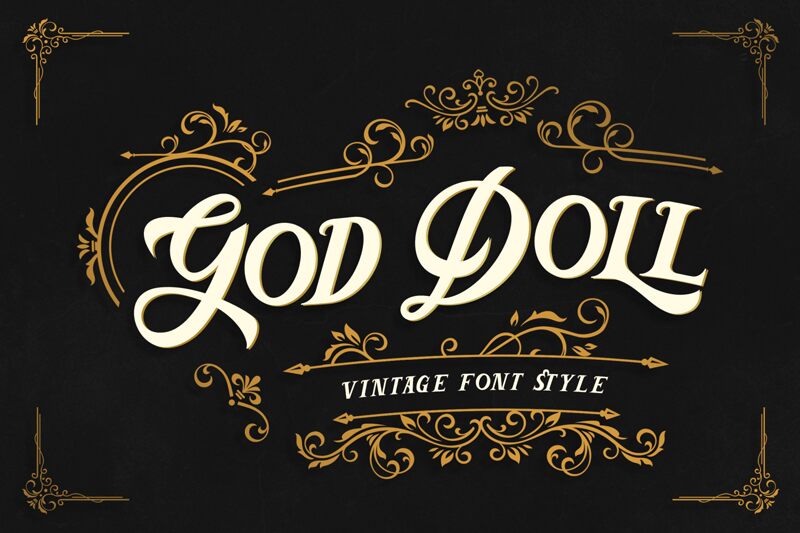
God Doll is a captivating vintage display font meticulously crafted by Typefactoryco. Inspired by classic posters, this hand-made font exudes a timeless charm that instantly transports your designs to the golden era.
With its versatile features, God Doll offers uppercase and lowercase letters, numerals, symbols, punctuations, alternates, ligatures, and multilingual support.
Whether you're creating a logotype for a prestigious brand or designing an eye-catching letterhead that demands attention, God Doll effortlessly elevates your projects. Unleash your creativity with God Doll's captivating appeal and embrace its endless possibilities. Craft stunning posters that capture the essence of nostalgia or design apparel with an irresistible vintage flair. Let God Doll adorn labels with its unique character and bring authenticity to any design endeavor. Experience the magic of God Doll as it adds a touch of vintage allure to Logotypes, Letterheads, Posters, Apparel Design - the options are limitless!